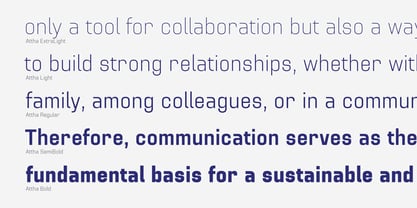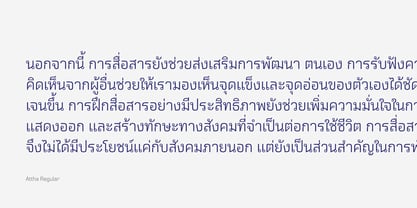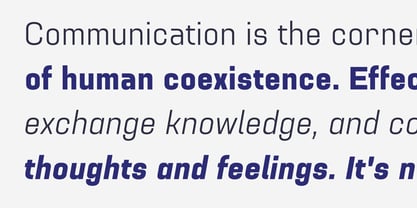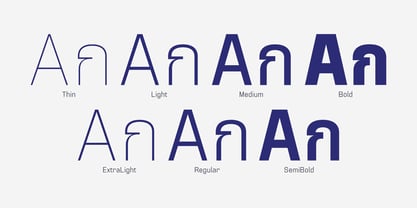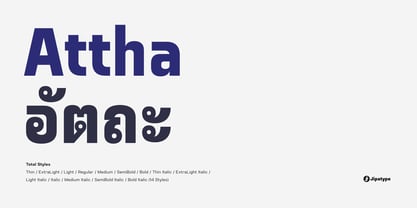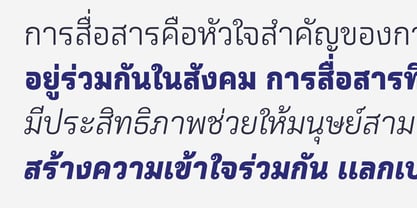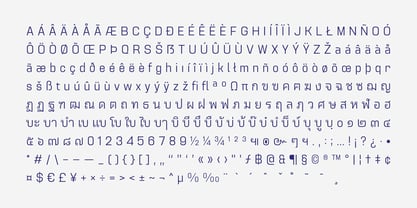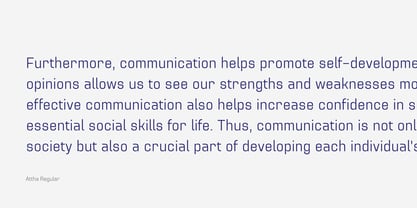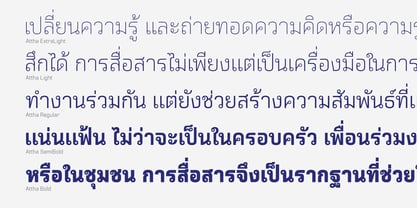
Attha
by Jipatype
The Attha Font Family was designed by Anupap Jaichumnan and published by Jipatype. Attha contains 14 styles and family package options. More about this family
Attha is a contemporary Thai-Latin sans-serif typeface designed with a unique geometric structure. This font is a result of my initial exploration into Thai typography, aiming to create a clean, modern, and readable typeface with simplified loops (หัว). The design is based on geometric and capsule-like shapes, giving it a semi-formal yet friendly feel. It's a versatile choice for both print and digital media, especially suited for headlines, display text, and various publications. 14 styles to choose from, offering flexibility for different design needs. Supports Thai and Latin-1 languages.
Designers: Anupap Jaichumnan
Foundry: Jipatype
Attha